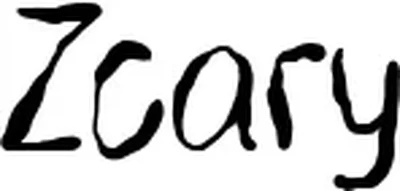
Zcary Font
Zcary combines clean construction with expressive detail, making it a dependable asset in any type toolkit.
Common applications include business cards, posters, web headers, advertising materials, book covers, and corporate identity systems.